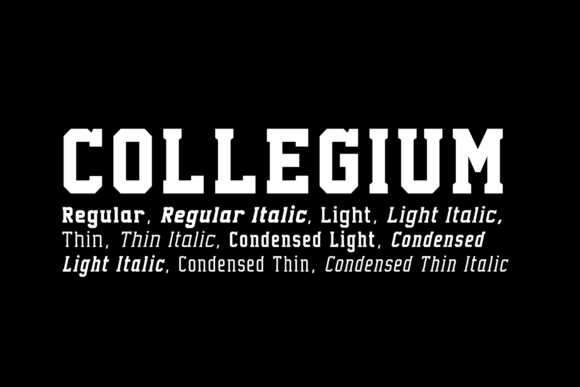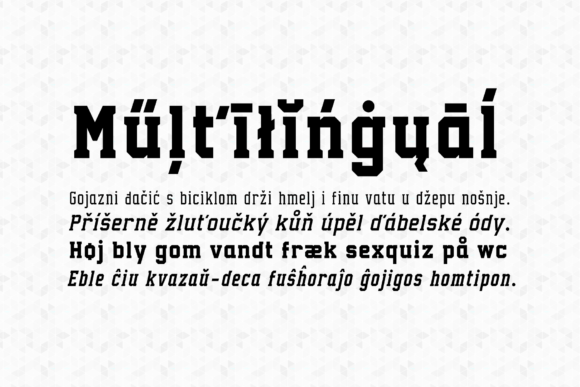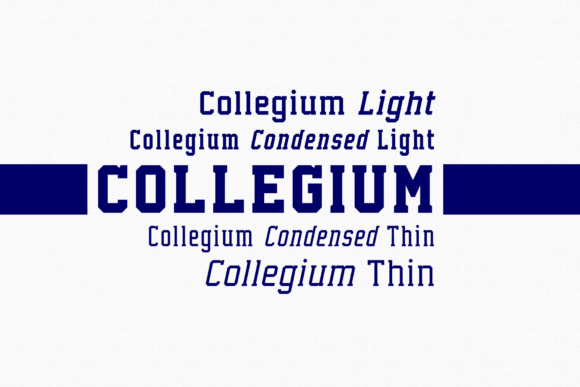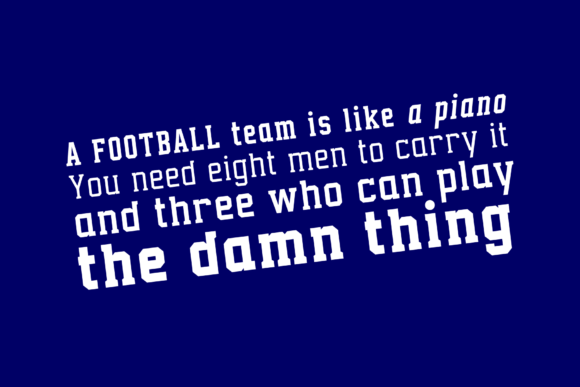
Introduction to Collegium Font
The Collegium is a font family inspired by college and university sportswear lettering.
It has a great readability and is perfect for adding a modern touch to your designs .